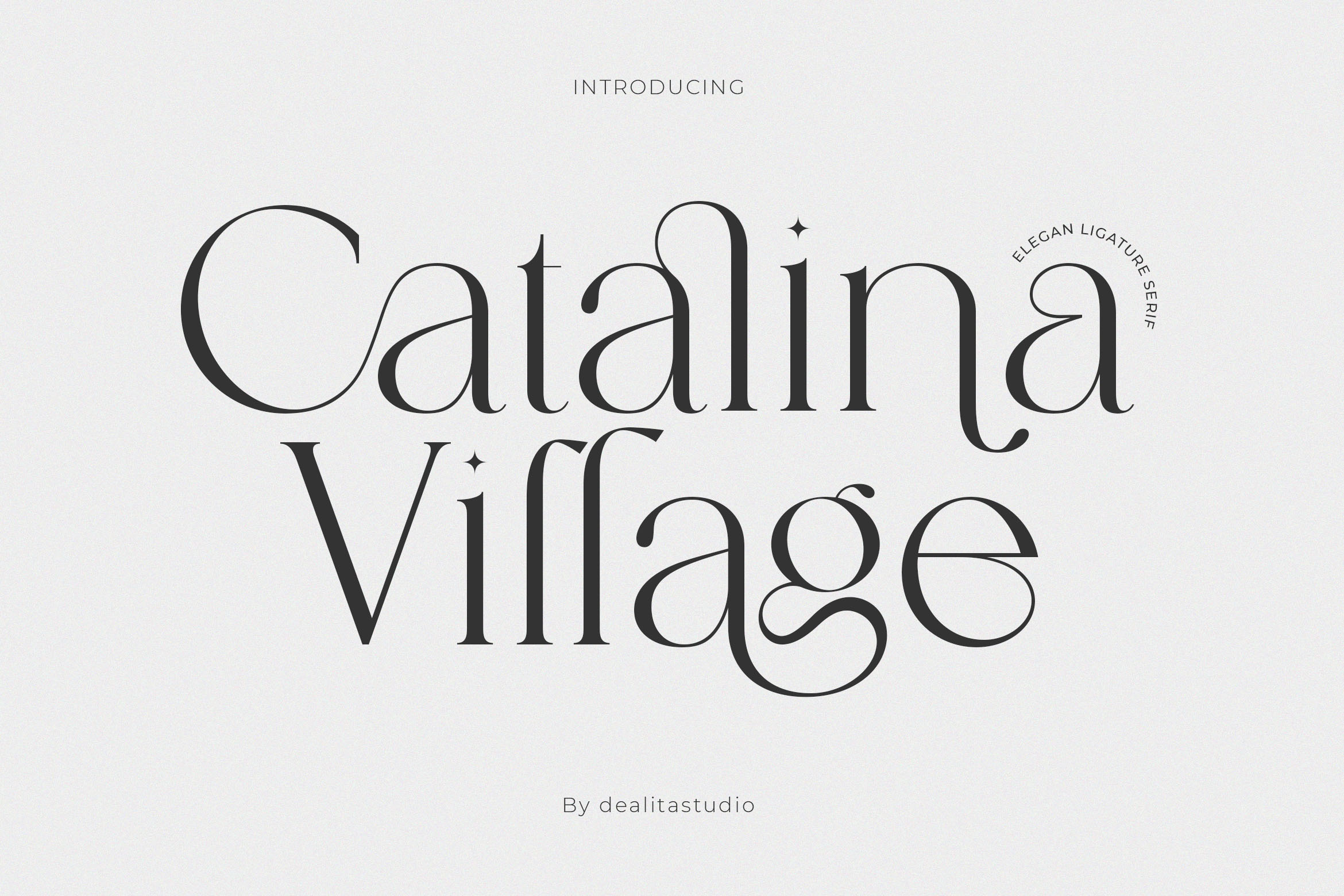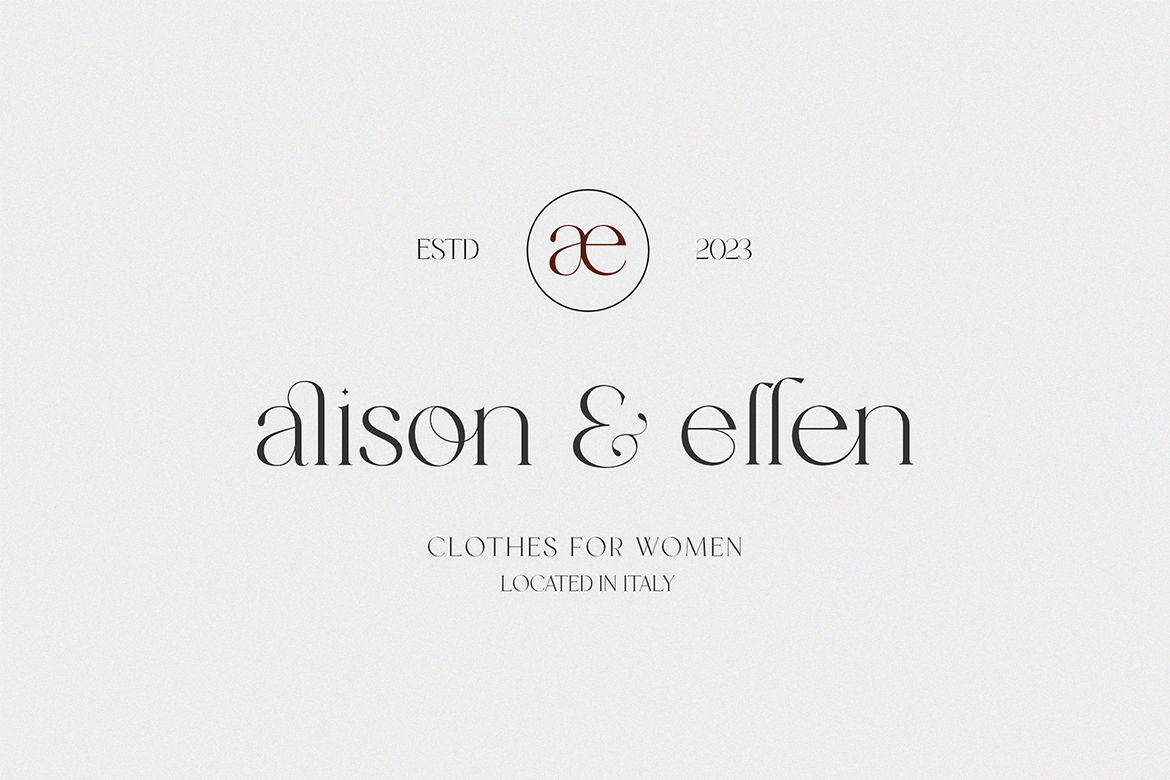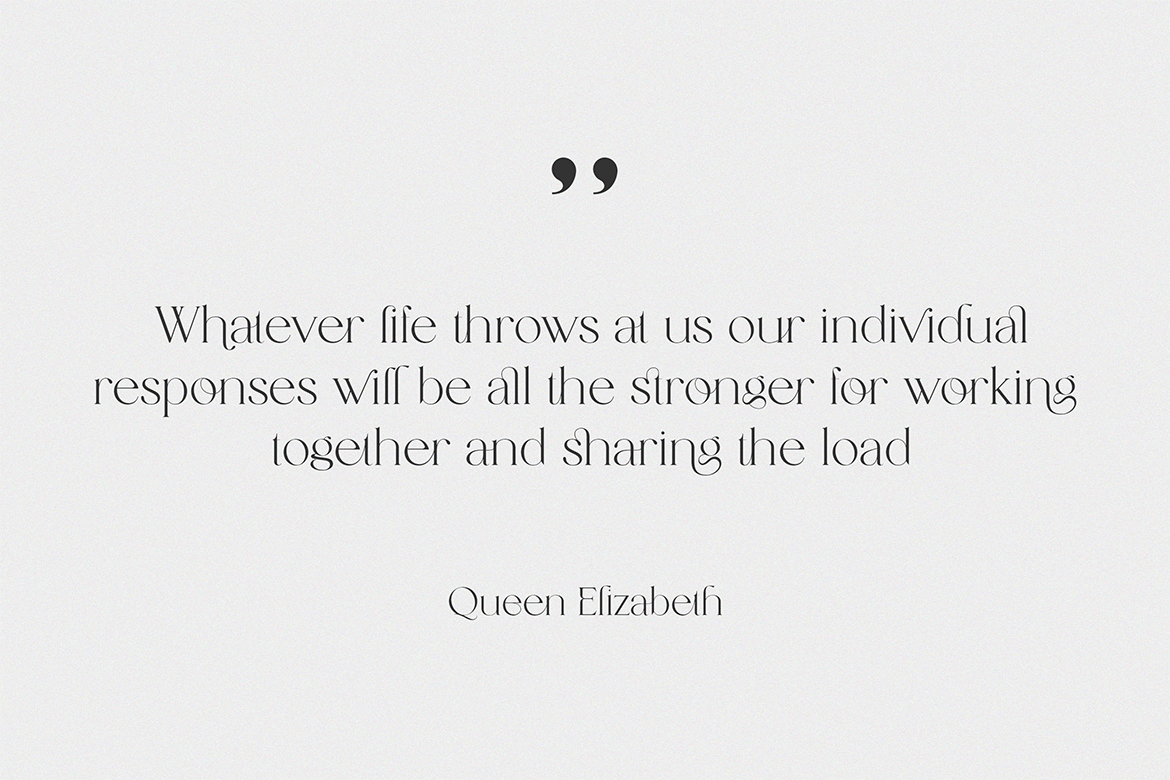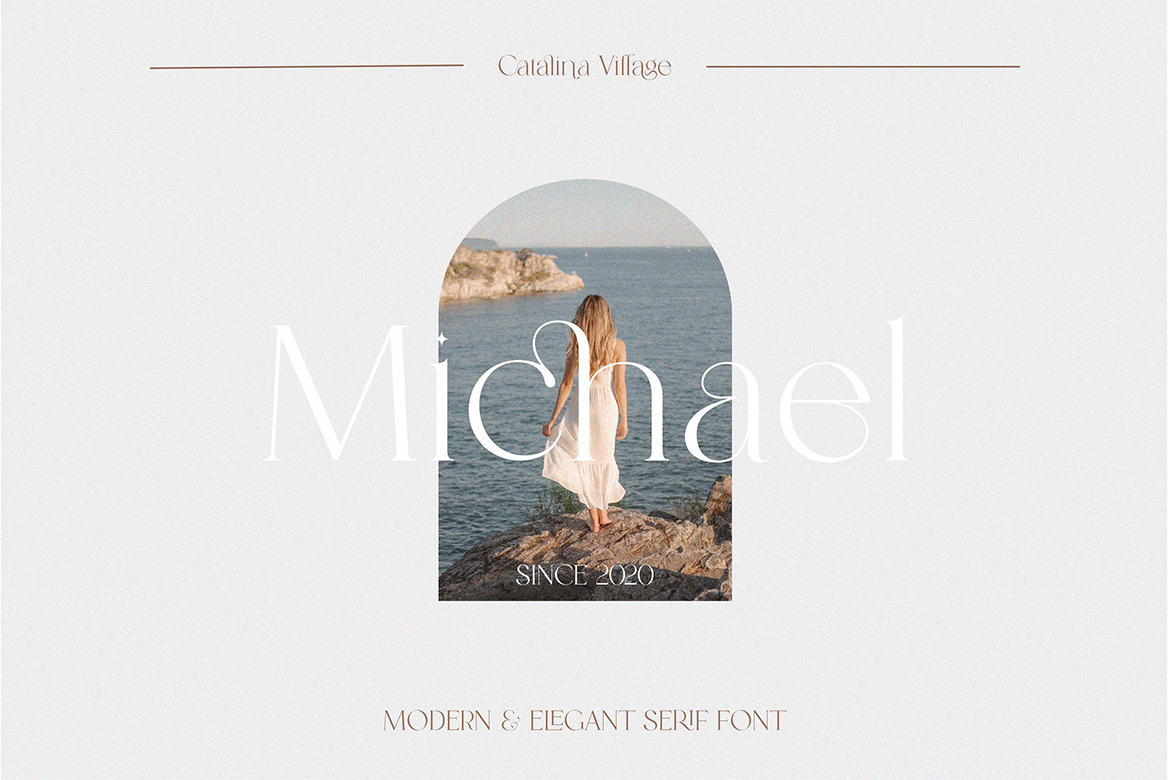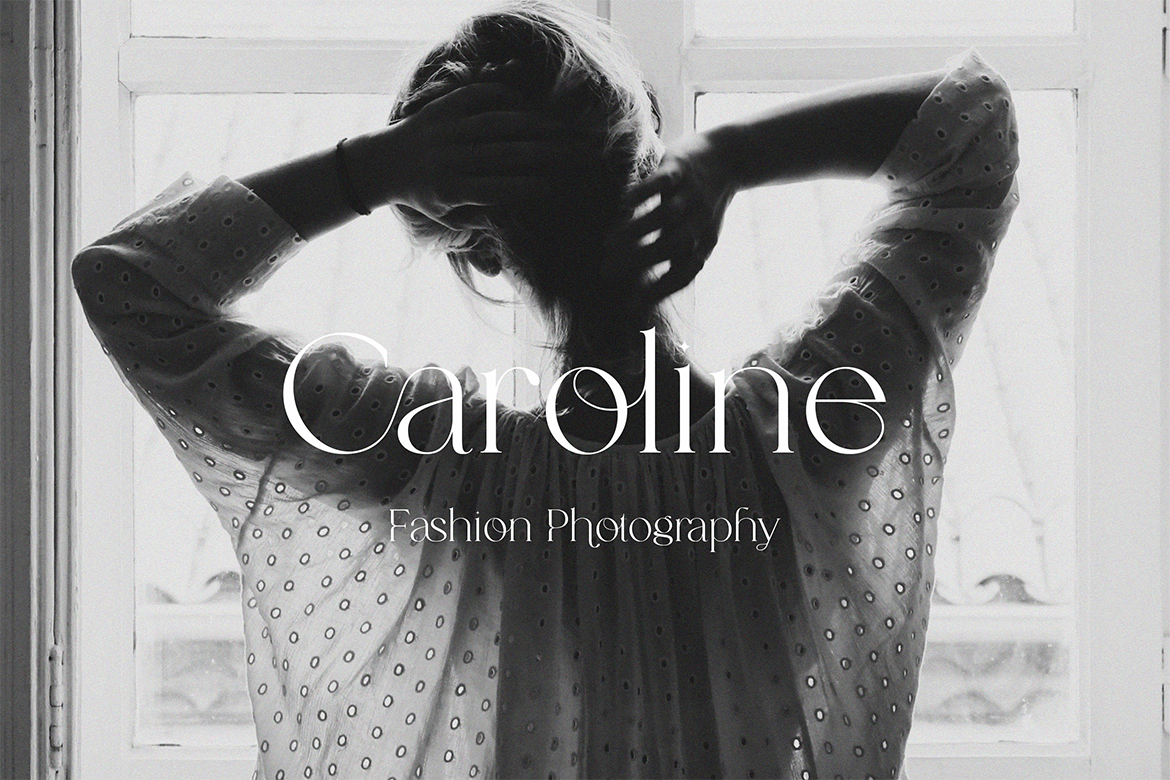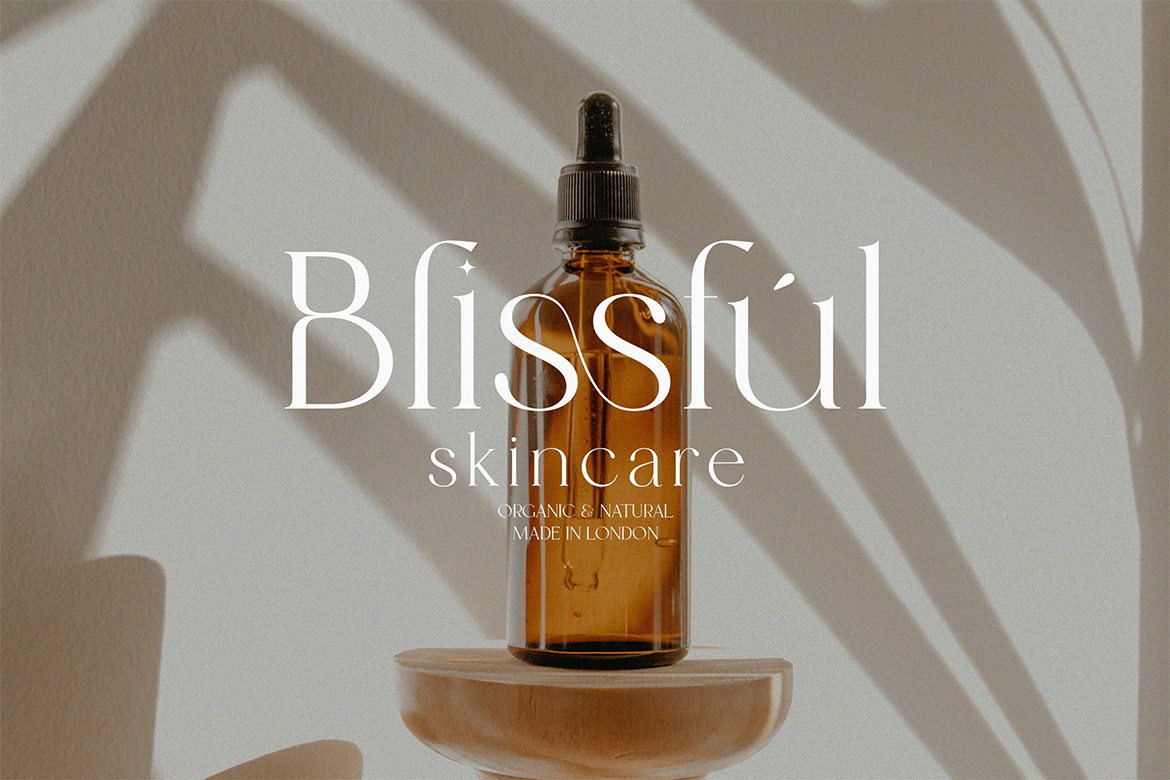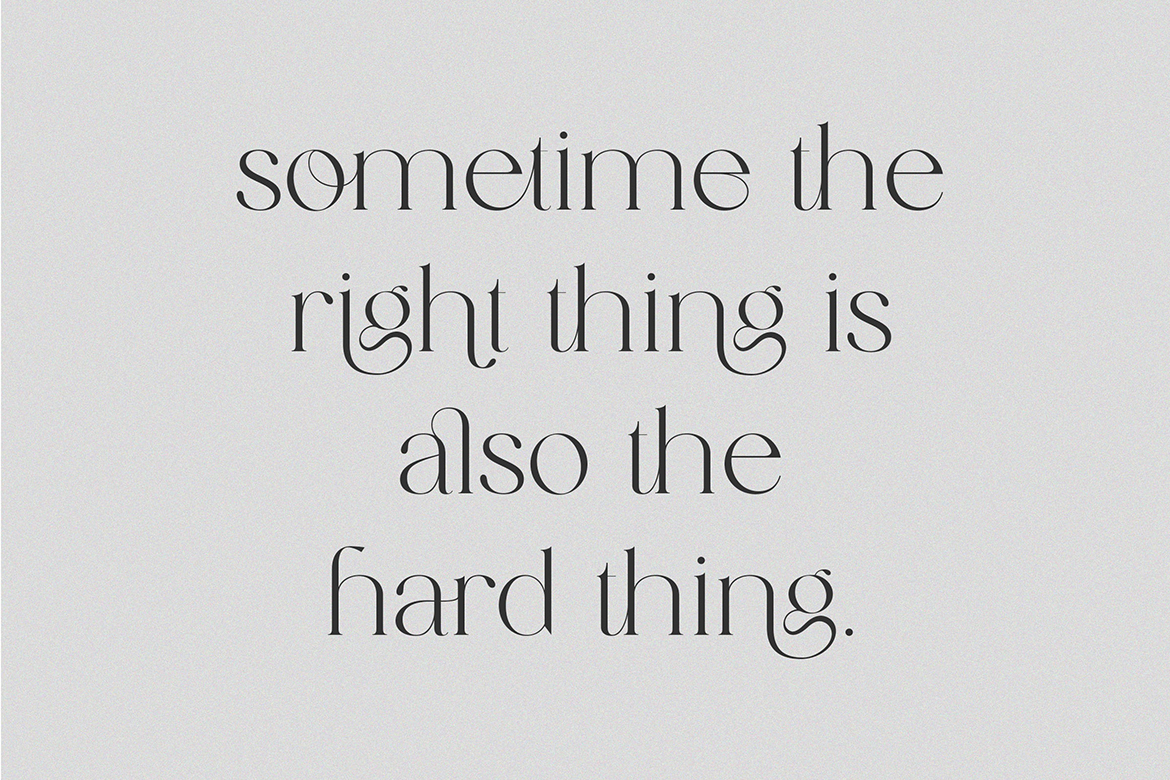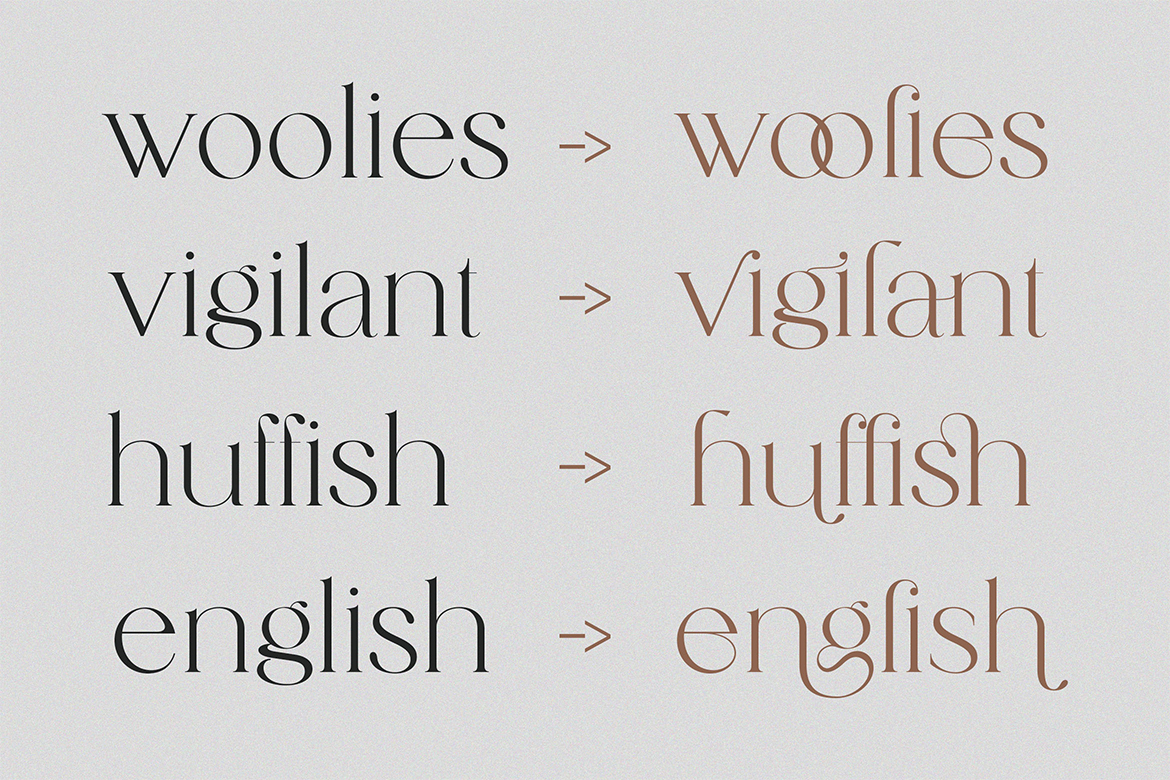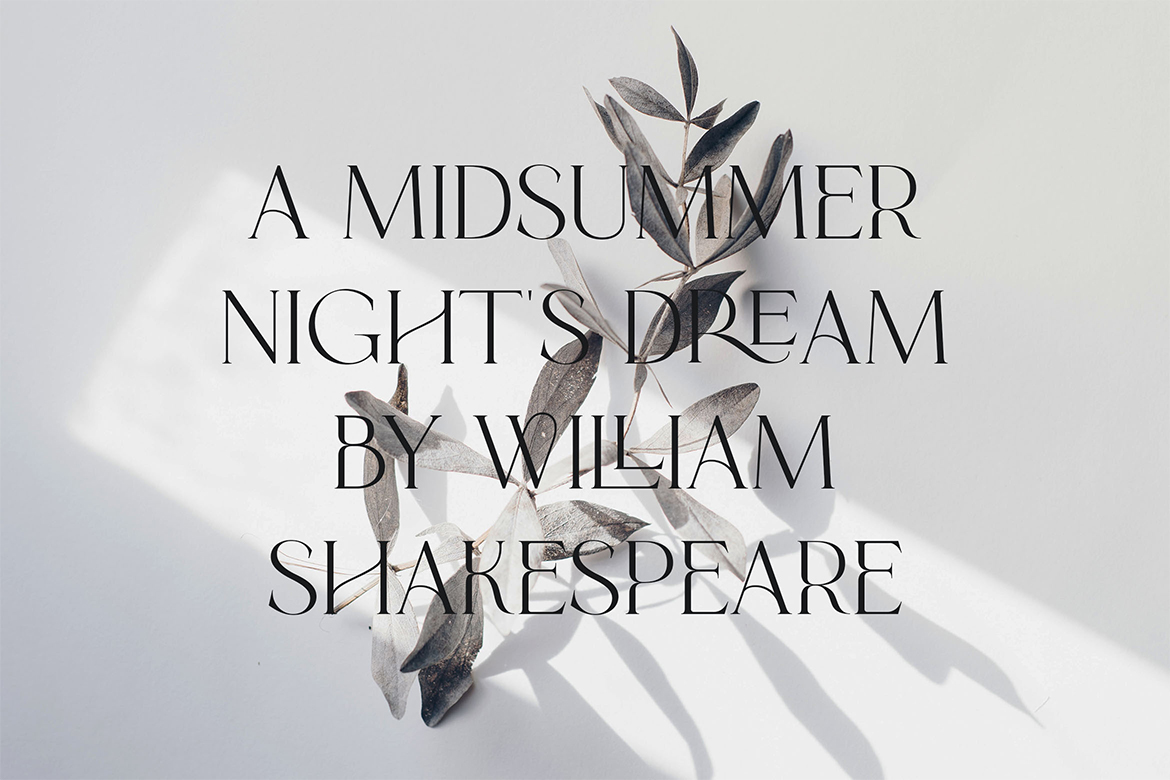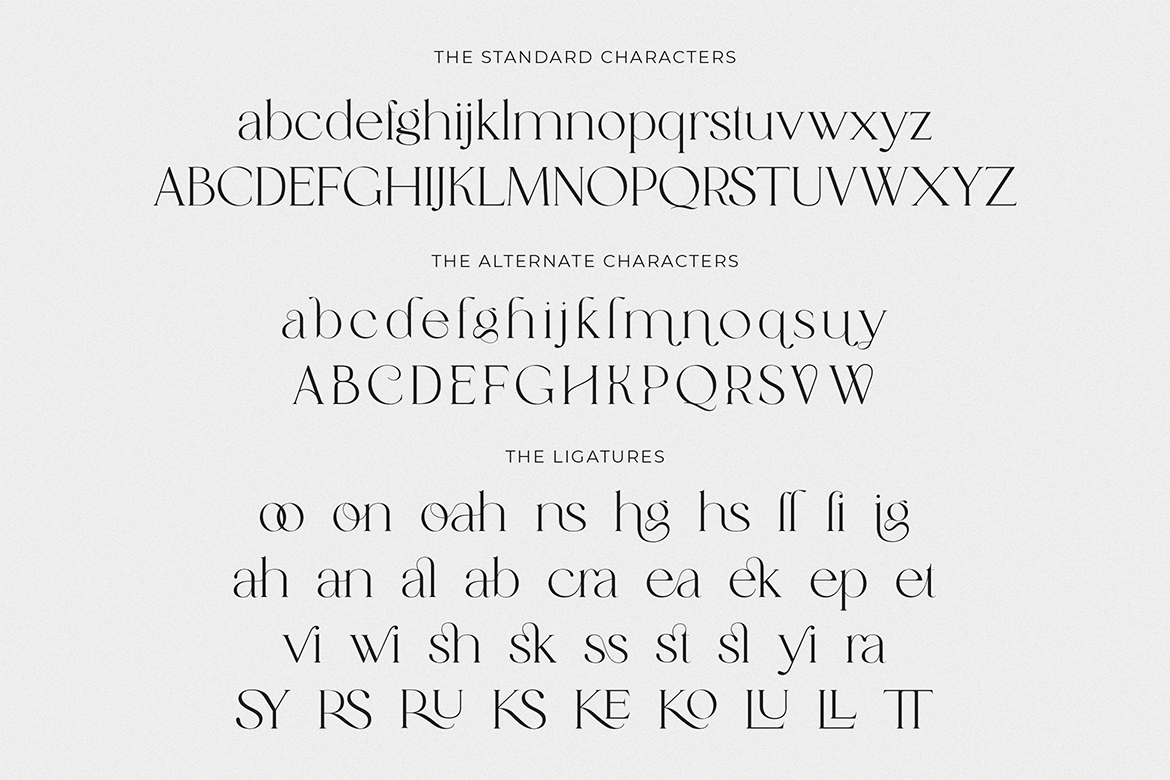
Catalina | Luxury High Contrast Serif Font with Ligatures
Description
Catalina – Luxury High-Contrast Ligature Serif
Catalina is an exquisite luxury high contrast serif font designed for unmatched sophistication and timeless beauty. This typeface embodies true craftsmanship, combining graceful curves with refined decorative details and a high-contrast aesthetic. With an industry-leading 113 Ligatures, Catalina instantly elevates typography to a state of authentic, hand-crafted precision.
Designed for professionalism and high-impact branding, Catalina is perfect for luxury branding, high-fashion labels, editorial design, and any project that demands unparalleled elegance.
Ideal Applications
- Luxury Fashion and High-end Beauty Branding
- Editorial Design and Magazine Layouts
- Premium Product Packaging and Labeling
- Sophisticated Corporate and Event Stationery
Technical Mastery & Precision
- 113 Ligatures across four OpenType features for unparalleled natural flow and authenticity.
- High Ligature Count ensures every connection is intentional and precise, crucial for high-level professional work.
- 351 Glyphs and 66-Language Multilingual Support.